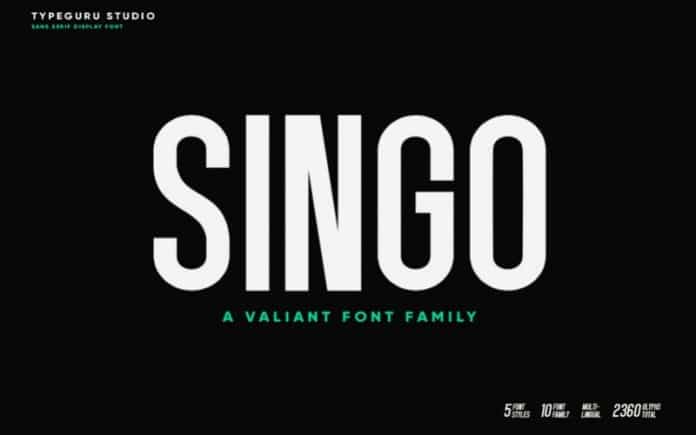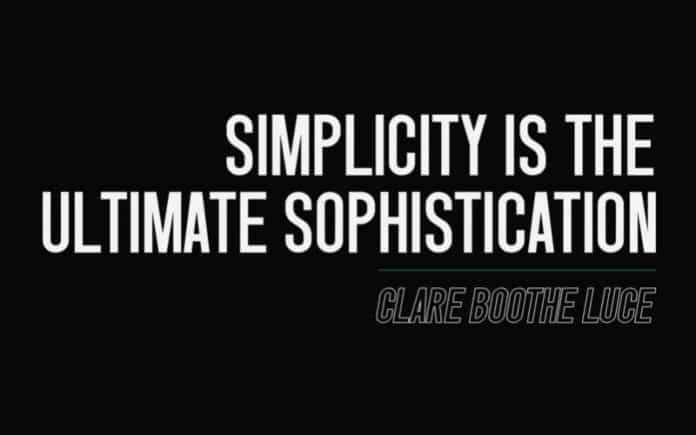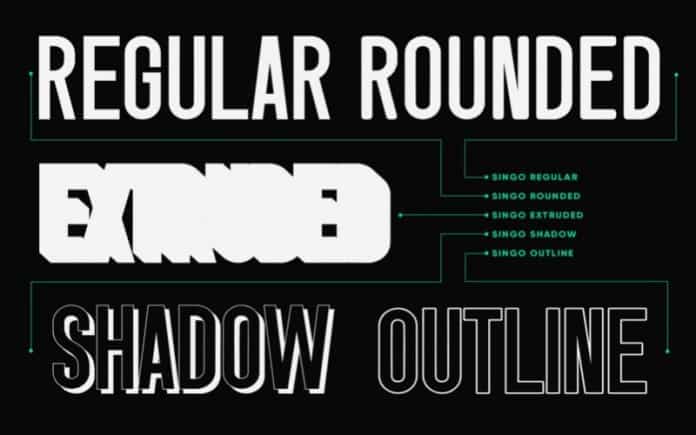
Discover Singo Font, part of the Sans Serif Personal collection—a versatile and unique font perfect for adding a personal touch to your projects. Download it for free and enjoy crafting designs with style, from invitations to social media posts. This font is available exclusively for personal use, giving you the freedom to create without limits. Unlock your creativity with Singo Font today!
Singo Bold Font is an elegant, classic and simple sans-serif font which has been created with style in mind. Whether you need it for headlines, paragraphs, cover images or any web design project – and it’s available in multiple languages! Singo Sans-serif font has also got support for multiple languages